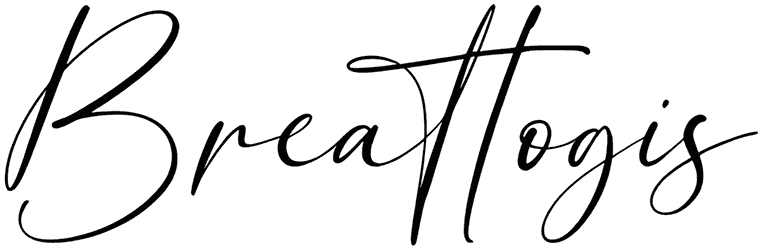
Breattogis Font
With modern and casual words, you can perfectly promote your design and be unique. As a feminine tattoo font, Breattogis consists of delicate letters with a stylish and appealing vibe. Even without numbers, this elegant handwritten font can nicely illustrate your projects, for instance, movie ads, flyers, social media posts, tattoos, and along with others.
Breattogis Script Font. Made from natural pen.
it will make your design project more beautiful.
The font is suitable for any design like branding, logo, tagline, fashion,